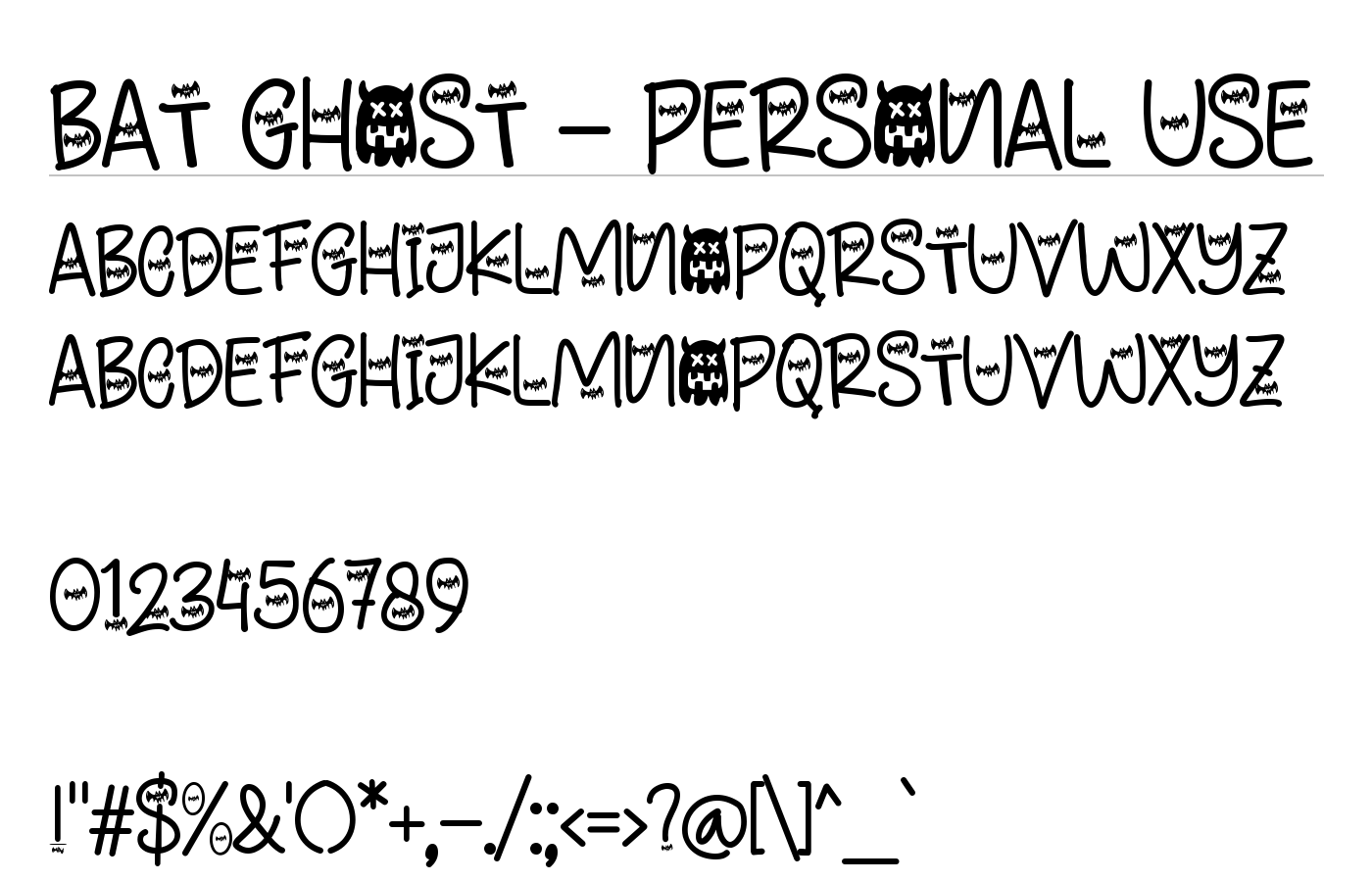
Bat Ghost is a playful and quirky sans-serif font with a hand-drawn feel, featuring whimsical bat-themed accents that add a spooky, fun character. Its irregular, slightly condensed letterforms and casual style make it perfect for Halloween-themed designs, kids' projects, or anything seeking a lighthearted, festive vibe. This font works best in headlines, posters, and creative branding where a unique and spirited personality is desired.
Bat Ghost - Personal Use Font
About Bat Ghost - Personal Use Font